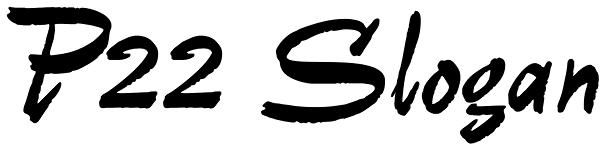
P22 Slogan
P22 Slogan is a non-connecting script font that captures the essence of the lettering used in 1950s European advertising. Bold strokes of this brush-drawn face make this design a great choice for both retro design and contemporary work. The font is...
P22 Slogan Font